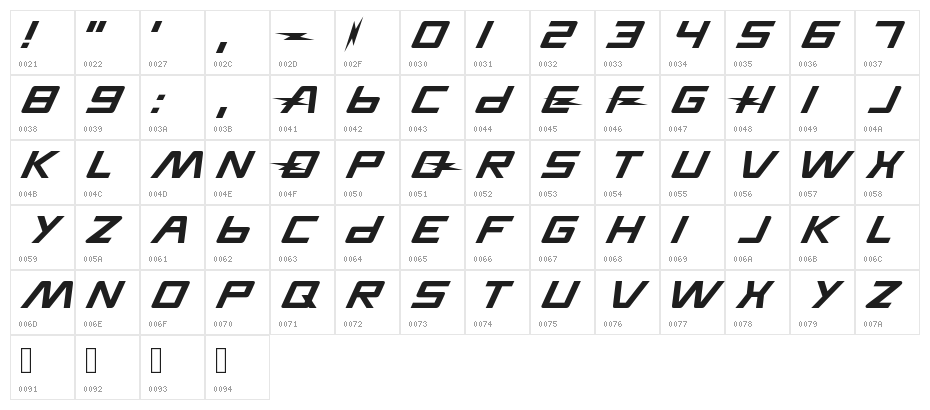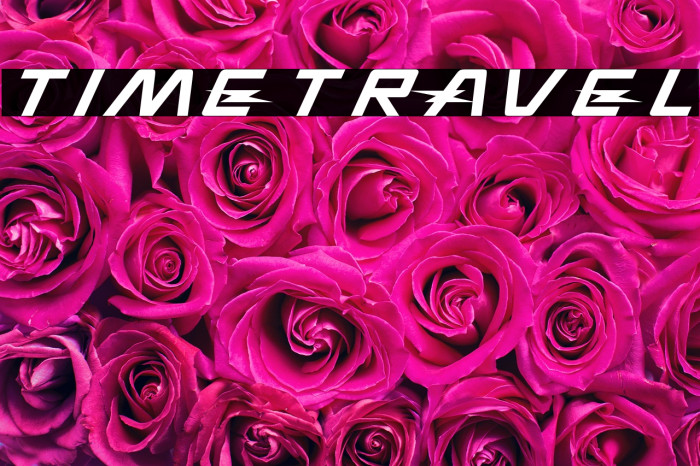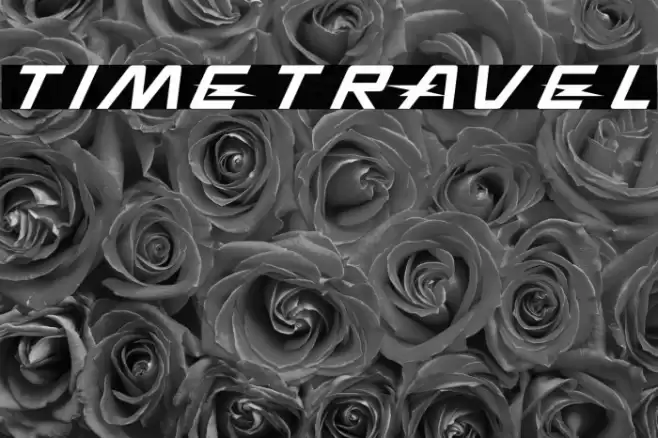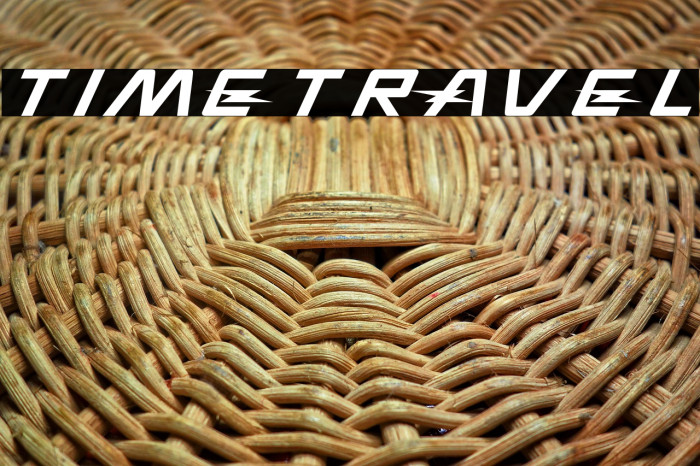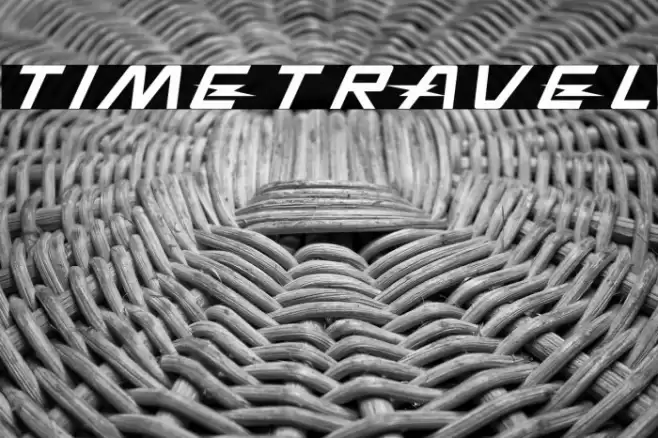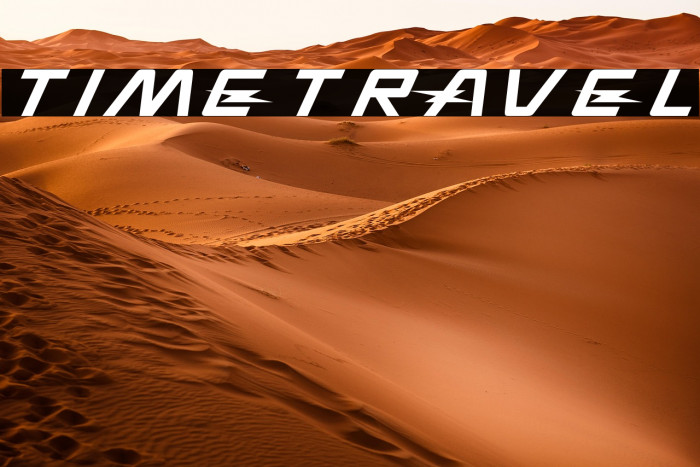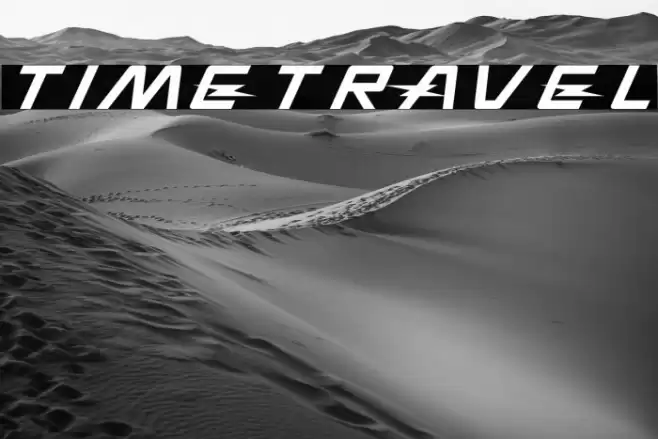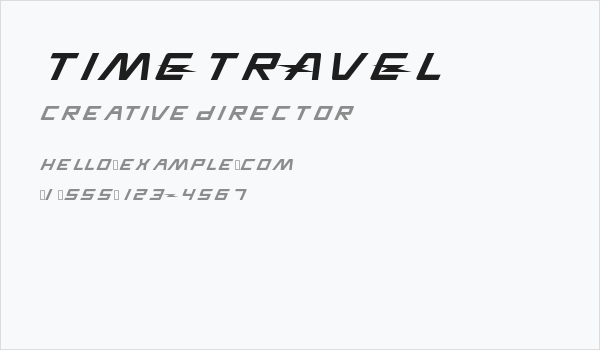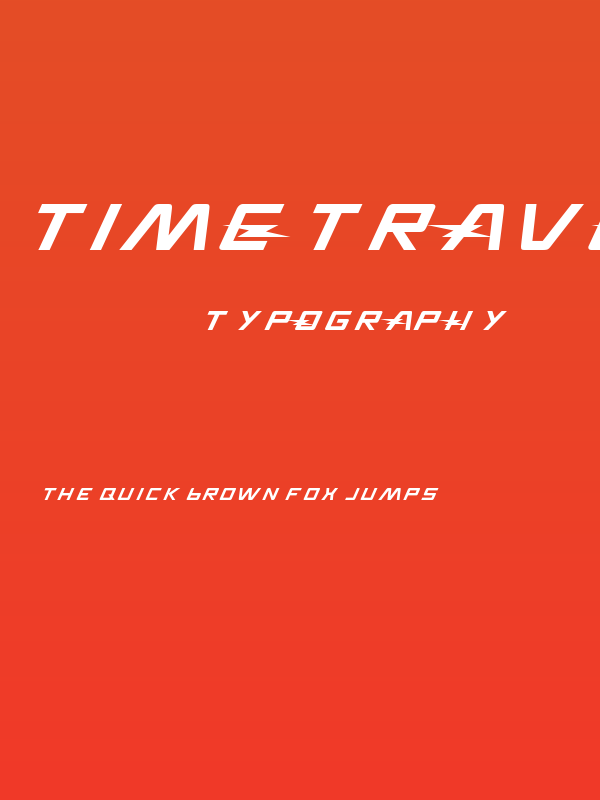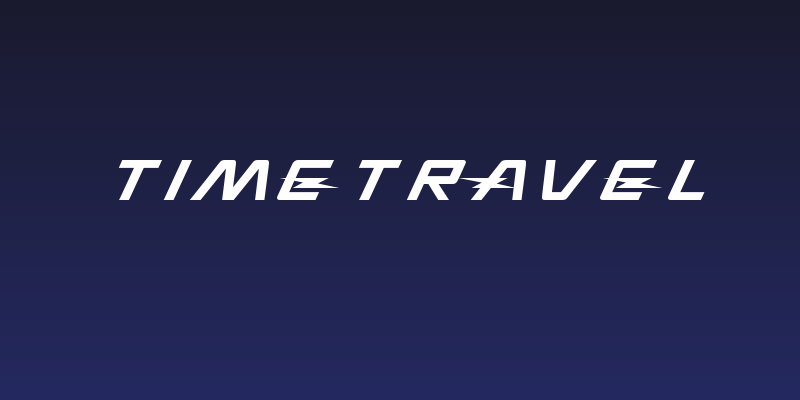
TIMETRAVEL Font
This font features a futuristic and dynamic design, characterized by sharp angles and a sense of motion. The uppercase and lowercase letters maintain a consistent slant, giving the impression of speed and forward movement. The numbers and special characters follow the same angular style, enhancing the overall cohesive look. The font's unique style is achieved through distinct cuts and lines that intersect some of the characters, adding a sense of energy and modernity. This design is particularly suitable for projects that aim to convey innovation, technology, or a forward-thinking approach.
| Proposed Projects | Ideal for technology branding, sci-fi movie posters, video game titles, and futuristic-themed designs. |